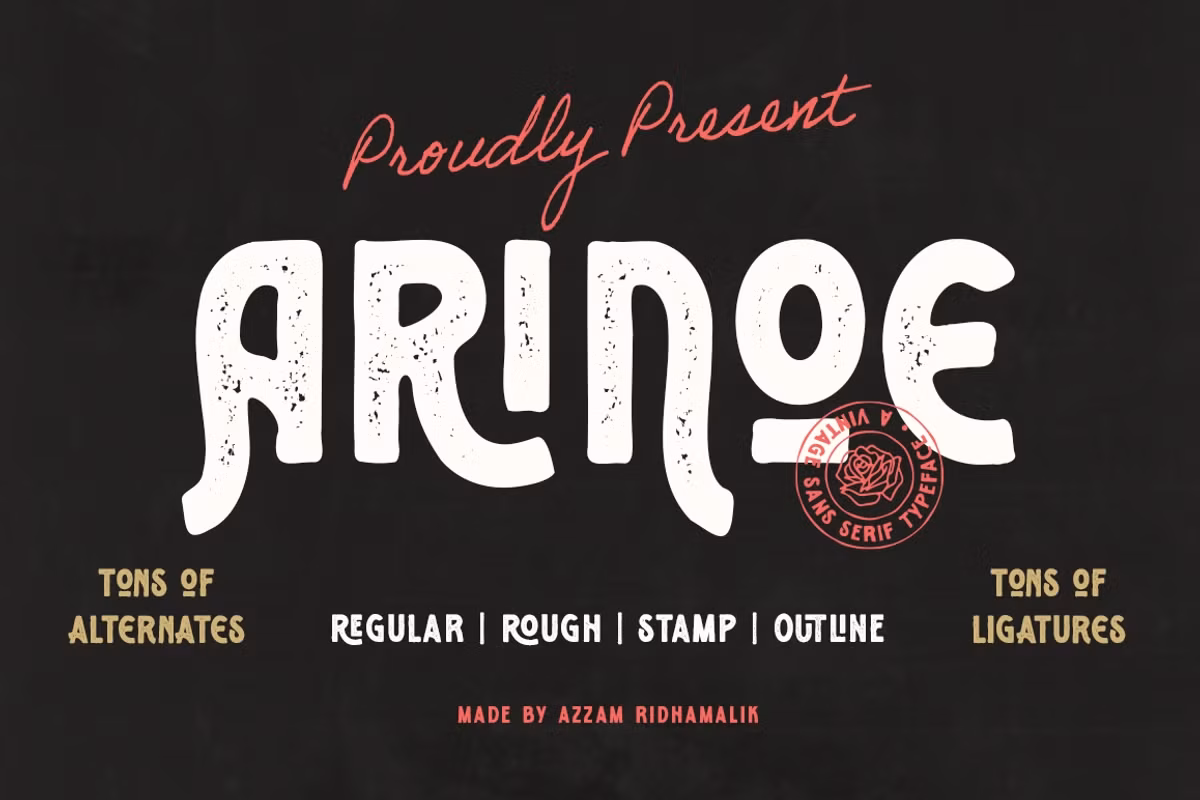
Arinoe - Vintage Font Free Download is a stylish and timeless typeface that combines retro charm with modern design elements. Perfect for logos, branding, posters, and vintage-inspired projects, Arinoe offers unique letterforms that bring a nostalgic yet fresh feel to your designs. Its distinctive look makes it ideal for projects that need an old-school vibe with a touch of contemporary flair.